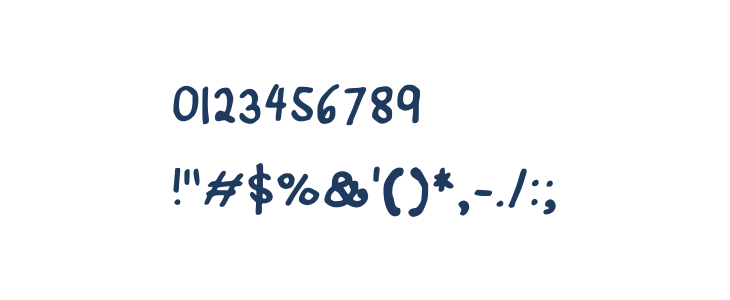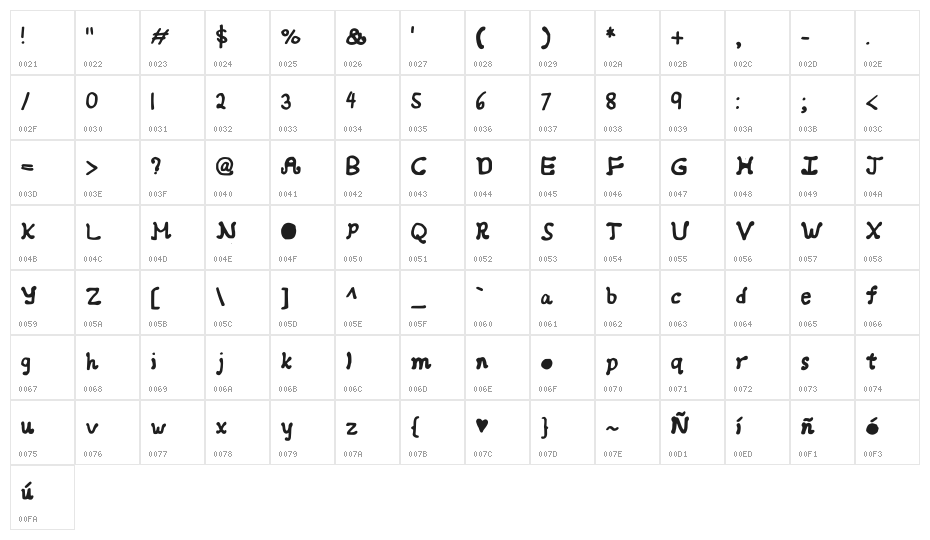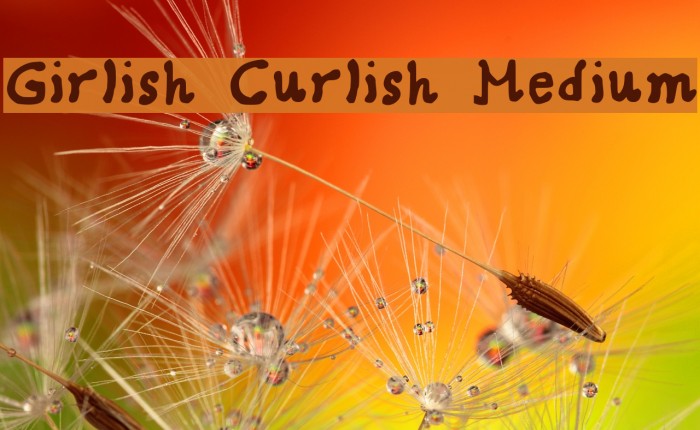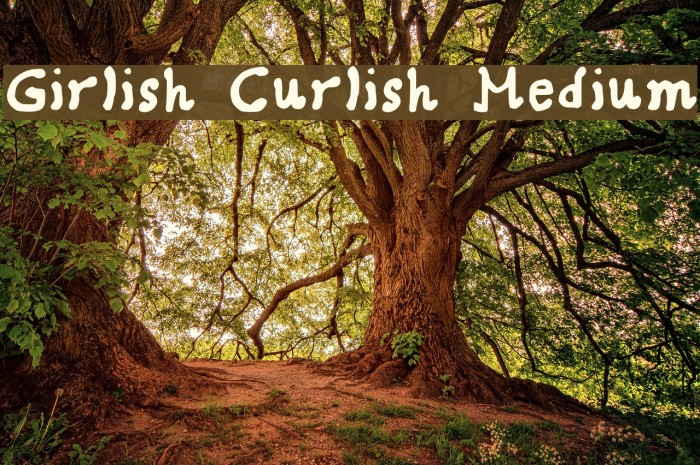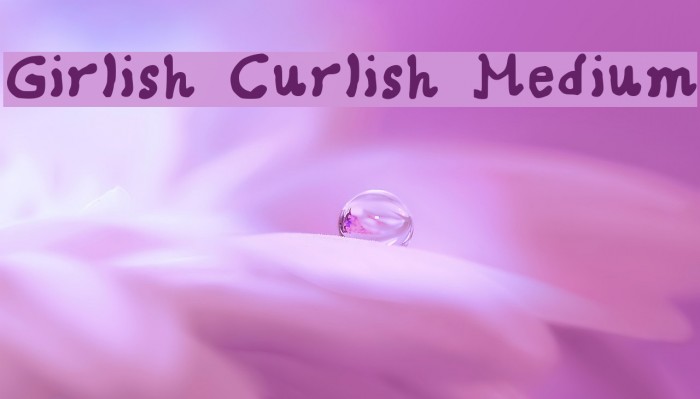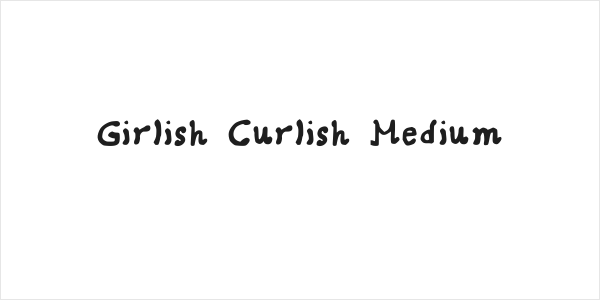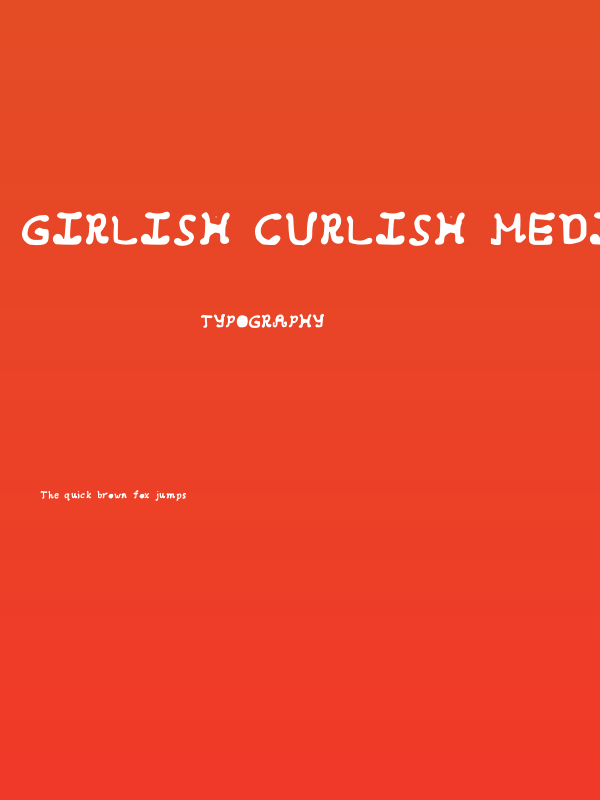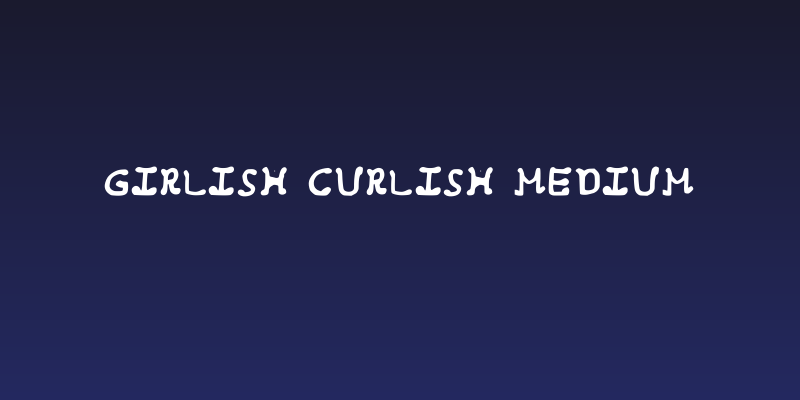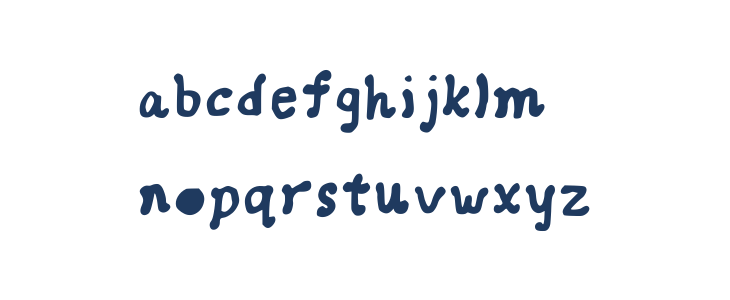
Girlish Curlish Medium Font
Girlish Curlish Medium Description
This playful and whimsical font features a curly, hand-drawn style that exudes a sense of fun and creativity. The characters are bold with a medium weight, giving them a strong presence while maintaining a light-hearted feel. The strokes are consistent, with rounded edges and a smooth flow that adds to the font's charm. The uppercase and lowercase letters are distinct yet harmonious, with a slightly irregular baseline that enhances the casual, informal vibe. The numerals and special characters follow the same playful design, making the font versatile for various uses.